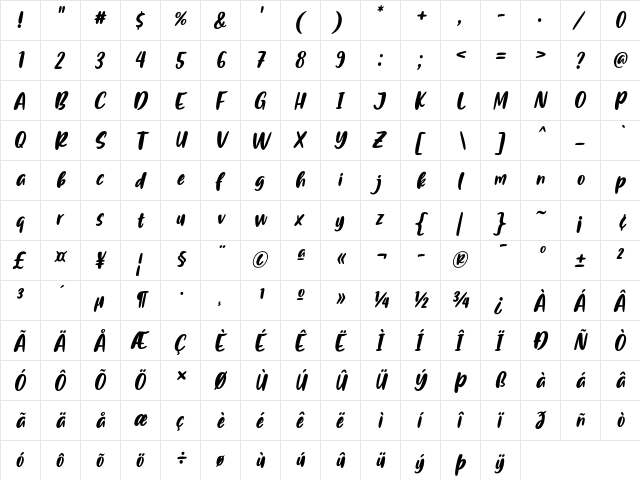
Flash on Saturday Night Italic
Design Context for Flash on Saturday Night Typeface
Flash on Saturday Night is a composed and adaptable typeface that performs quietly and consistently across a wide range of design contexts. The dynamic lean of this cut emphasises speed and emphasis in any layout.
Pro Tip: Try Flash on Saturday Night for annotation and caption copy alongside an upright companion — the contrast in angle creates a dynamic but ordered typographic system.